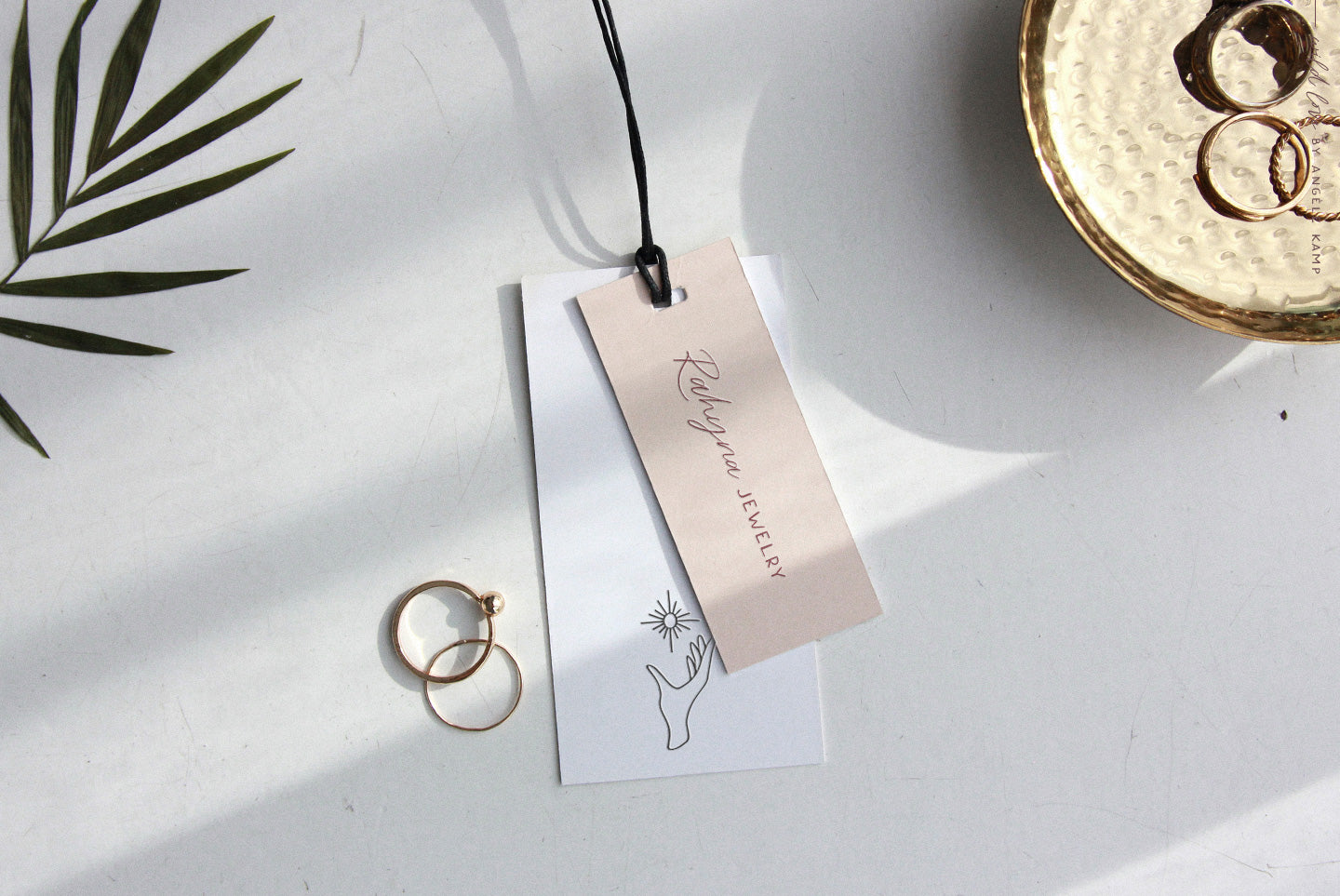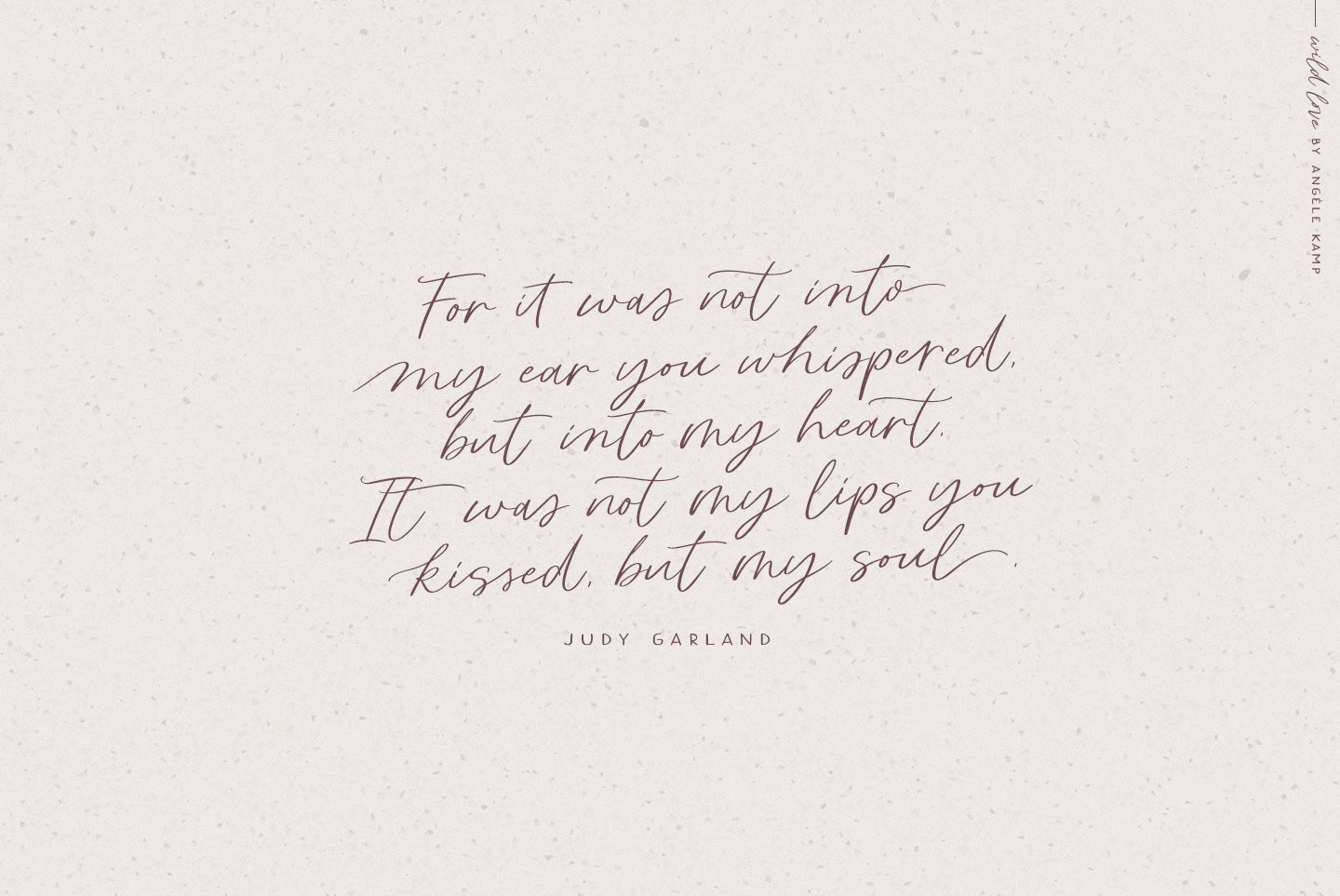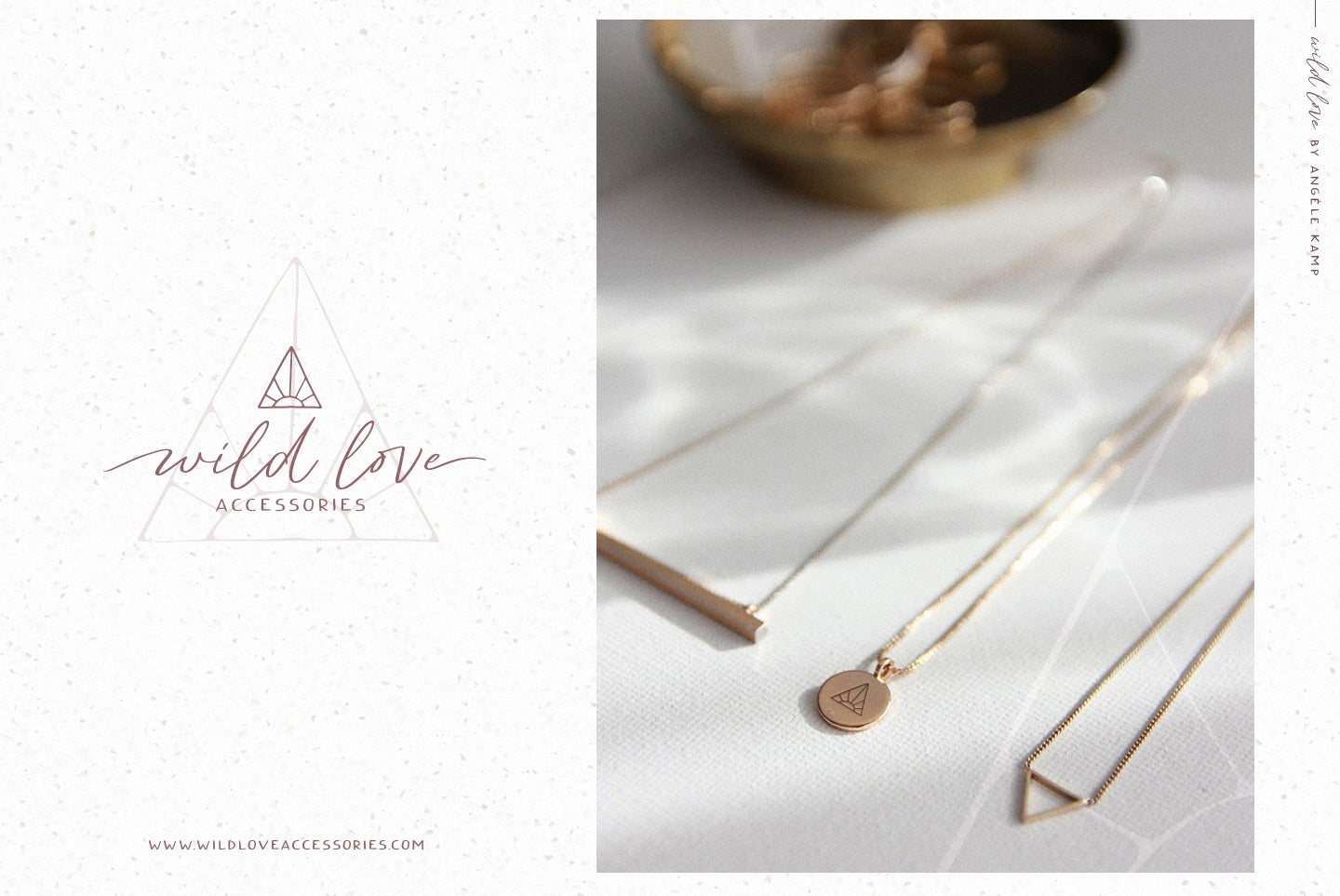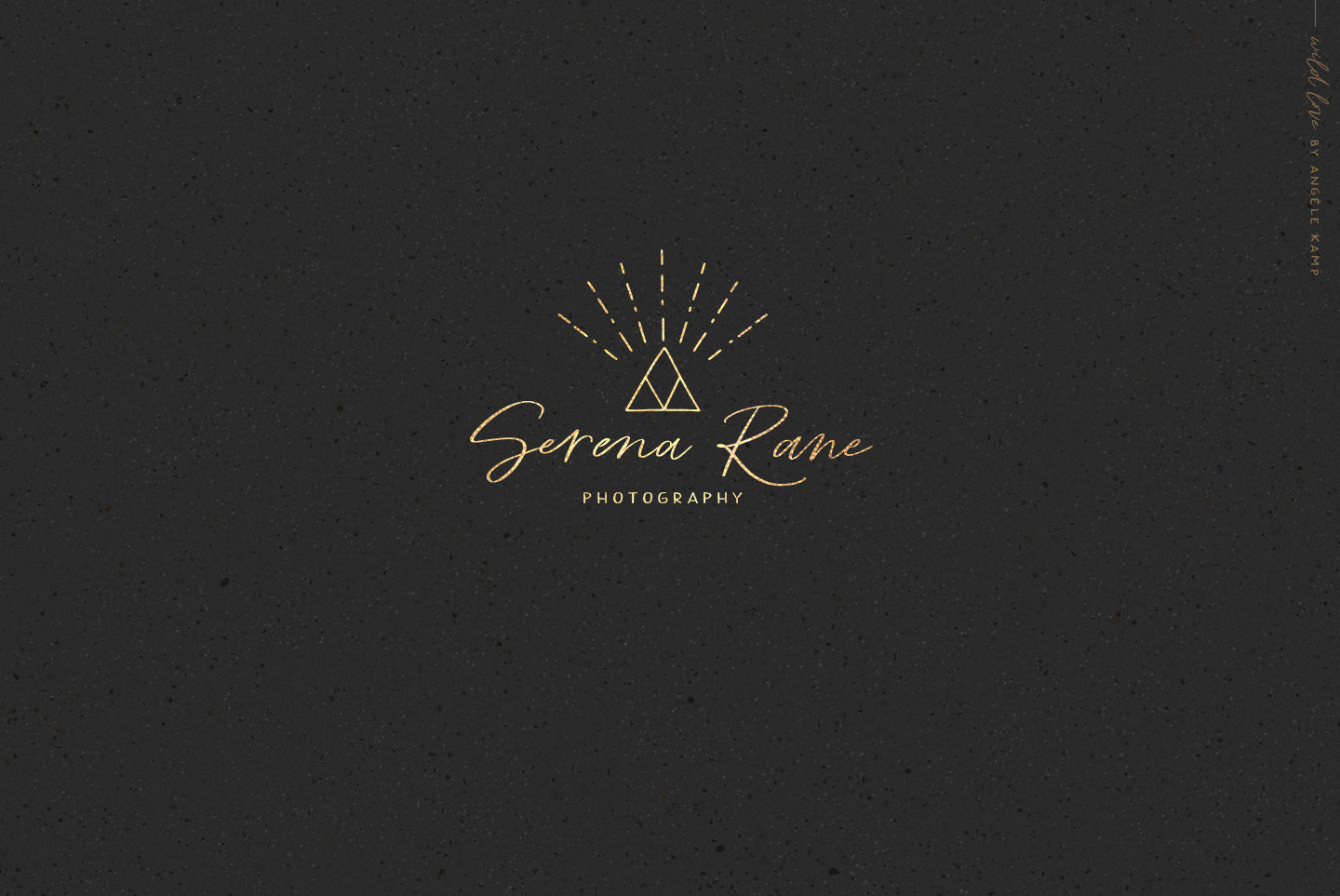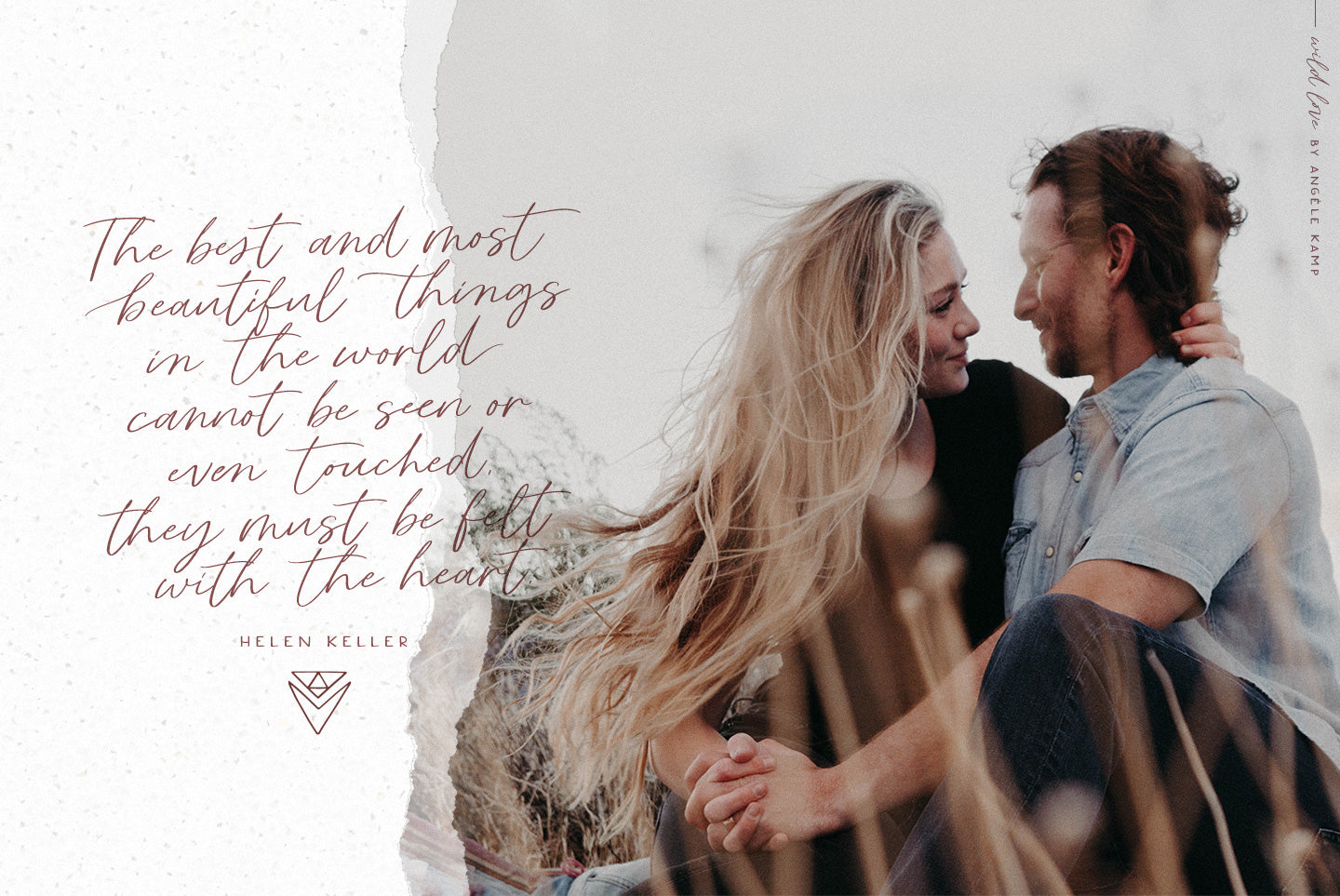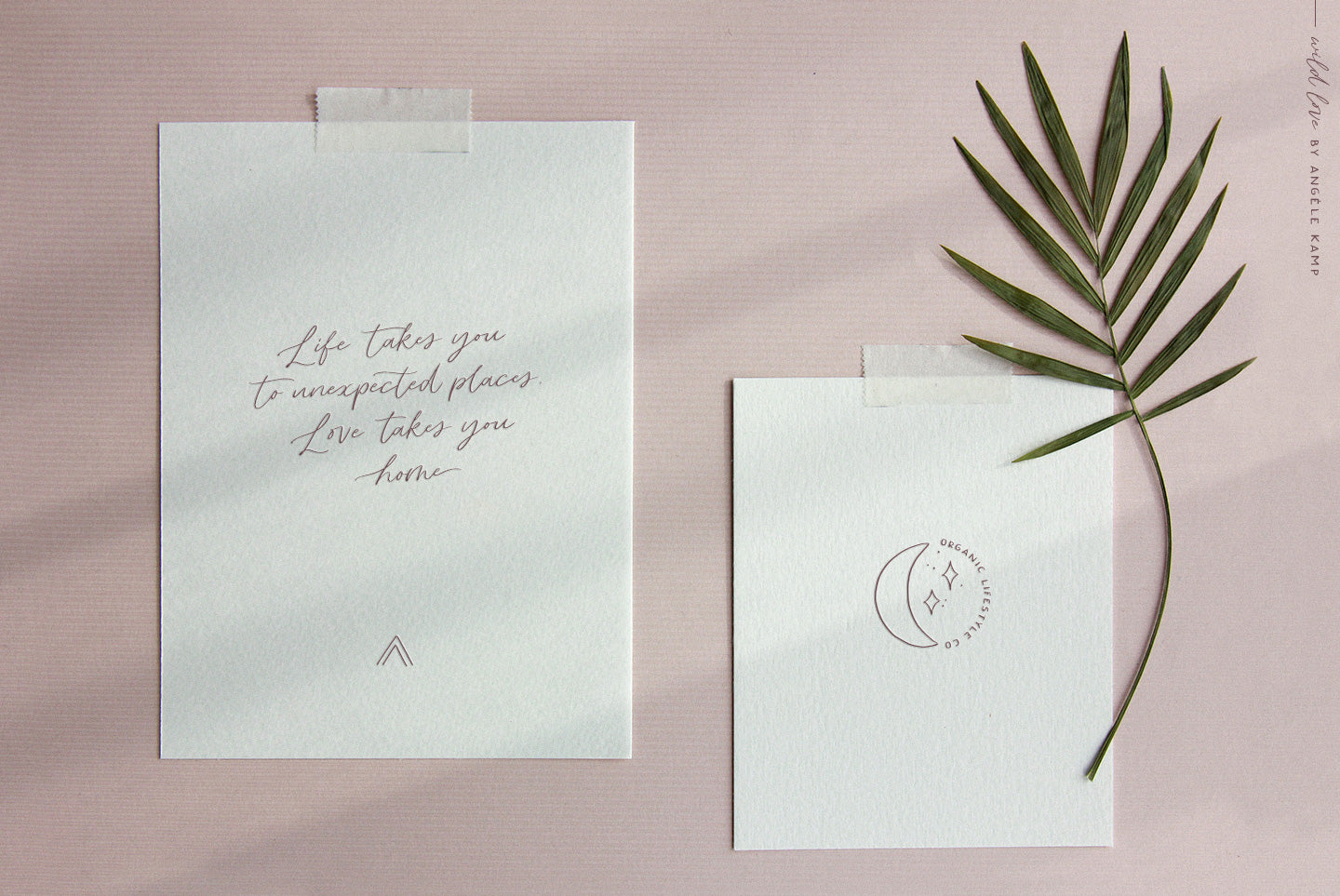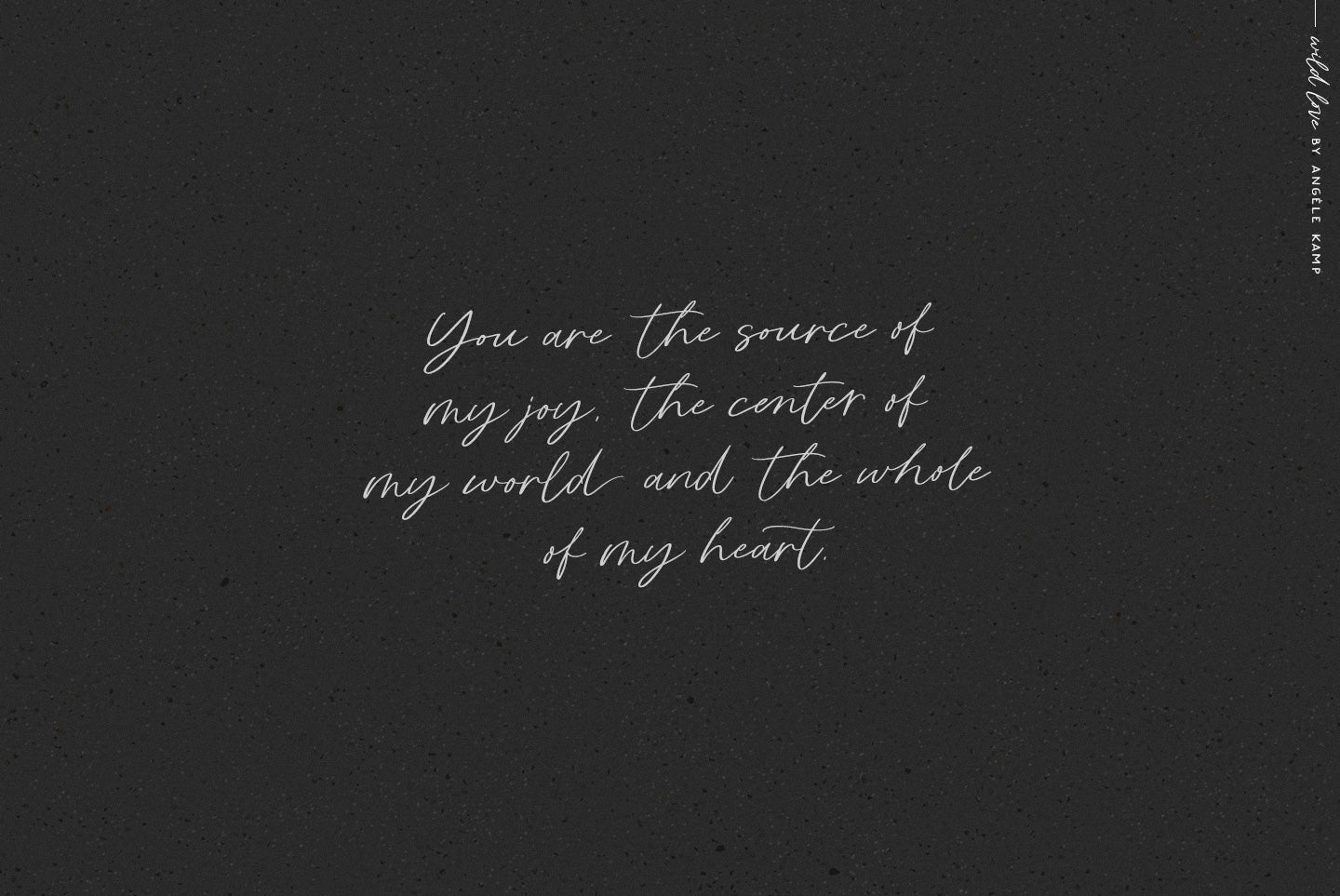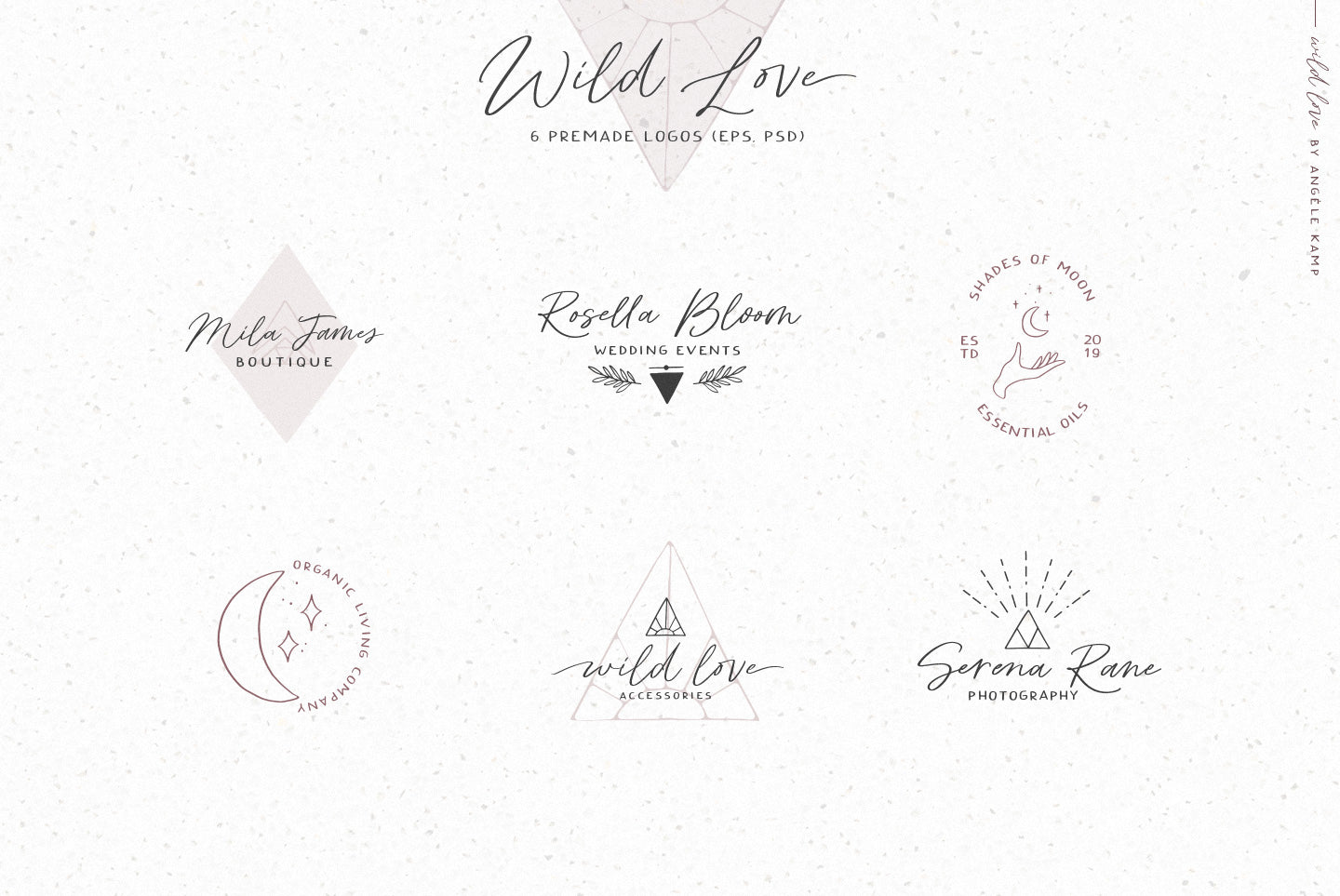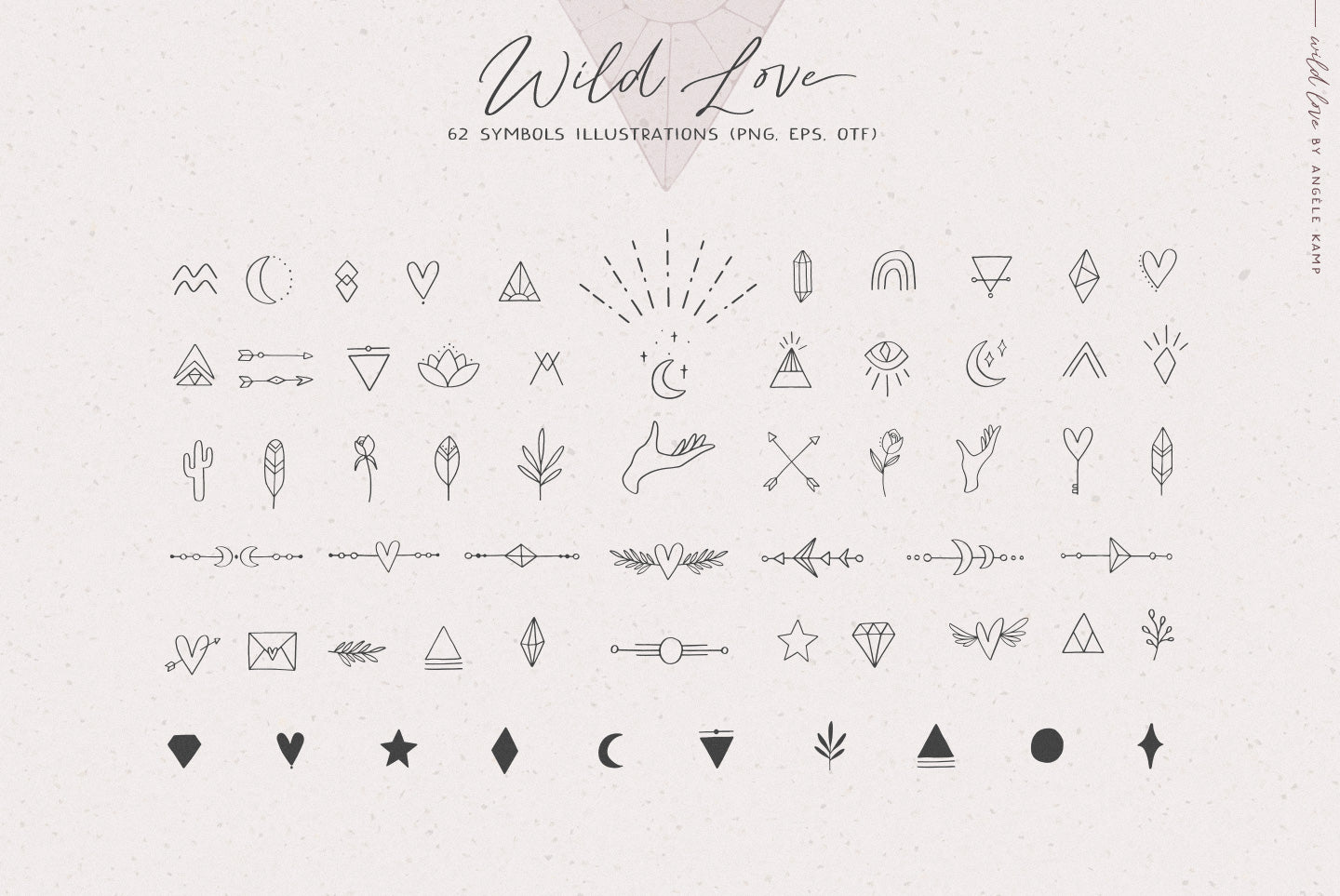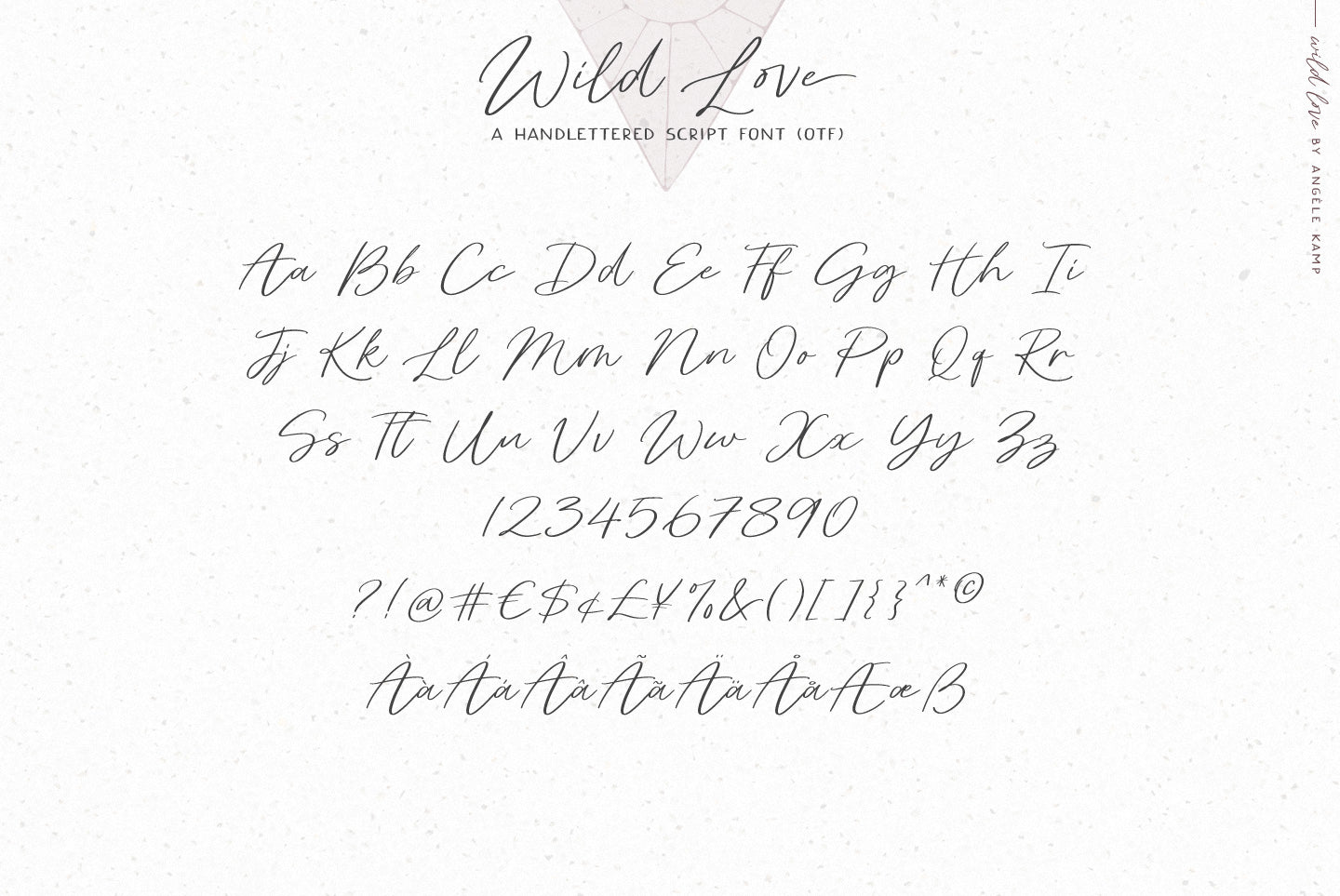
Wild Love font & logo collection Angele Kamp
Wild Love Fonts
Wild love is an amazing collection of fonts, symbols, logos & textures that has everything you font lovers dream of. This amazing collection comes with two fonts that pair perfectly together and a set of symbol illustrations that will make designing Instagram quotes, websites & invitations so much easier and fun. This collection also includes 6 stunning premade logos for you or your clients and as an extra bonus, I added 5 textures to give your designs that finished look.
WILD LOVE SCRIPT (OTF, WOFF) A lovely script font that includes 67 ligatures with letter combos that give you that gorgeous hand-lettered look. This font also includes 52 alternate start & end swashes for all of the lowercase characters.
WILD LOVE SANS (OTF, WOFF) This is an all caps font that pairs perfectly with the script font
WILD LOVE SYMBOLS (OTF, WOFF, 62 PNGS, VECTOR EPS) The symbols font includes 62 hand-drawn illustrations that can be used for all of your lovely creations. Once you install the symbols font, you can type out the letters a-z, A-Z, 1-10 or use the individual PNGs or vector eps file
PREMADE LOGOS (PSD, VECTOR EPS) 6 stunning premade logos for you or your clients. Just change the text in the Illustrator or Photoshop files and you're good to go